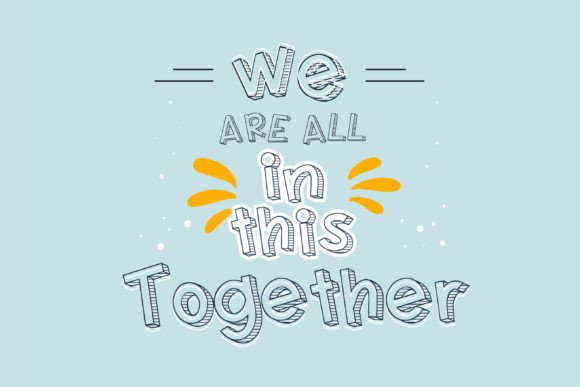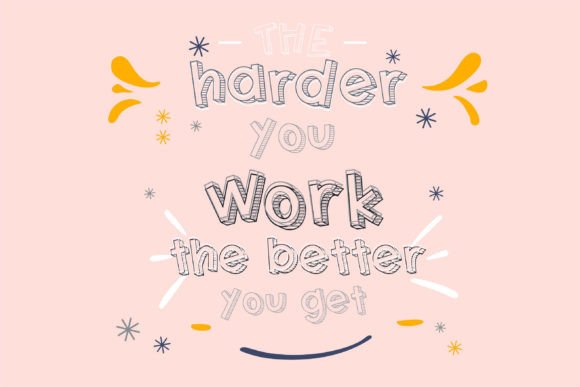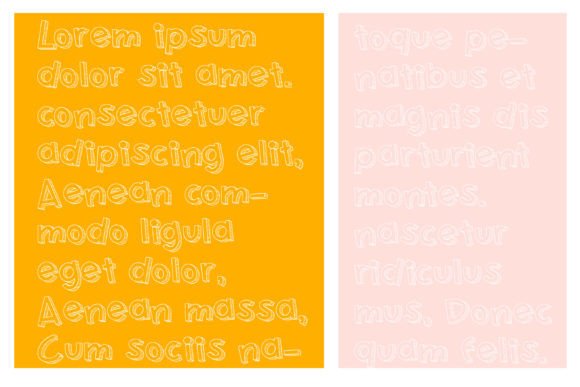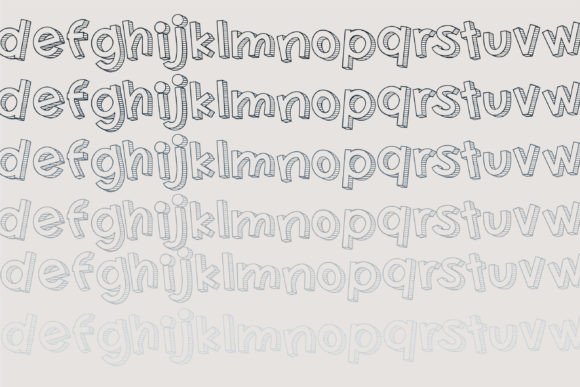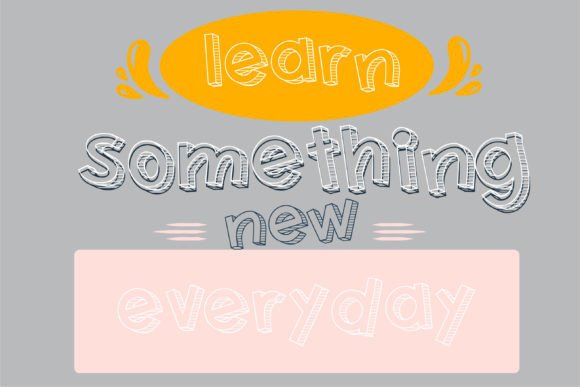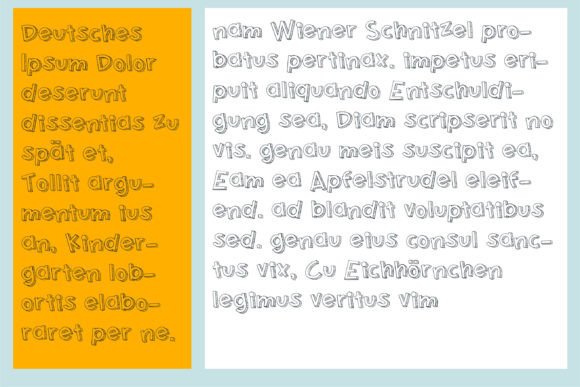
Hangman 3D Font: Elevate Your Designs with a Quirky and Adorable Display Font
Are you tired of using the same old fonts in your designs? Look no further than Hangman 3D, a quirky and adorable display font that’s sure to elevate any creation. With its unique 3D effect and playful charm, Hangman 3D is an incredible asset to any font library, regardless of the topic or theme. In this article, we’ll dive into the world of Hangman 3D and explore its features, benefits, and uses.
What is Hangman 3D Font?
Hangman 3D is a display font that features a 3D effect, giving it a raised and dimensional appearance. The font is designed to be quirky and playful, with a charming and whimsical feel that’s perfect for a variety of design projects. Whether you’re creating a poster, a logo, or a social media graphic, Hangman 3D is sure to add a touch of personality and flair.
Features of Hangman 3D Font
So, what makes Hangman 3D so special? Here are just a few of its key features:
- Unique 3D effect: The 3D effect of Hangman 3D gives it a raised and dimensional appearance that’s sure to grab attention.
- Quirky and playful: The font has a charming and whimsical feel that’s perfect for designs that need a touch of personality.
- Versatile: Hangman 3D can be used for a wide range of design projects, from posters and logos to social media graphics and more.
- Easy to read: Despite its 3D effect, Hangman 3D is still easy to read, making it perfect for headlines and titles.
Benefits of Using Hangman 3D Font
So, why should you choose Hangman 3D for your design projects? Here are just a few benefits:
- Adds personality: Hangman 3D adds a touch of personality and whimsy to any design, making it perfect for brands that want to stand out.
- Grabs attention: The 3D effect of Hangman 3D is sure to grab attention and draw the eye.
- Versatile: Hangman 3D can be used for a wide range of design projects, making it a great addition to any font library.
Uses of Hangman 3D Font
So, what can you use Hangman 3D for? Here are just a few ideas:
- Posters and flyers: Hangman 3D is perfect for creating eye-catching posters and flyers that grab attention.
- Logos and branding: The font’s unique 3D effect makes it perfect for logos and branding projects that need a touch of personality.
- Social media graphics: Hangman 3D is great for creating social media graphics that stand out in a crowded feed.
- Packaging design: The font’s playful charm makes it perfect for packaging design projects that need a touch of whimsy.
In conclusion, Hangman 3D is a quirky and adorable display font that’s sure to elevate any design project. With its unique 3D effect and playful charm, Hangman 3D is an incredible asset to any font library. Whether you’re a designer, craft, or DIY enthusiast, Hangman 3D is a great choice for any project that needs a touch of personality and whimsy.